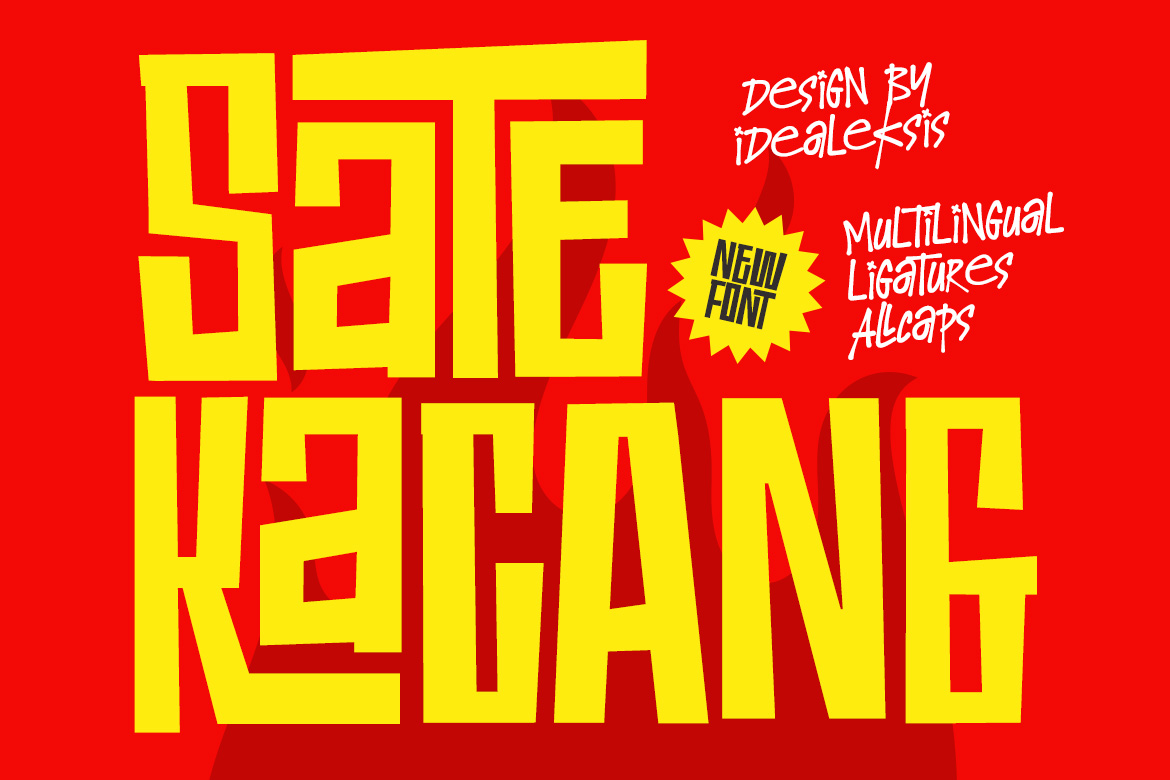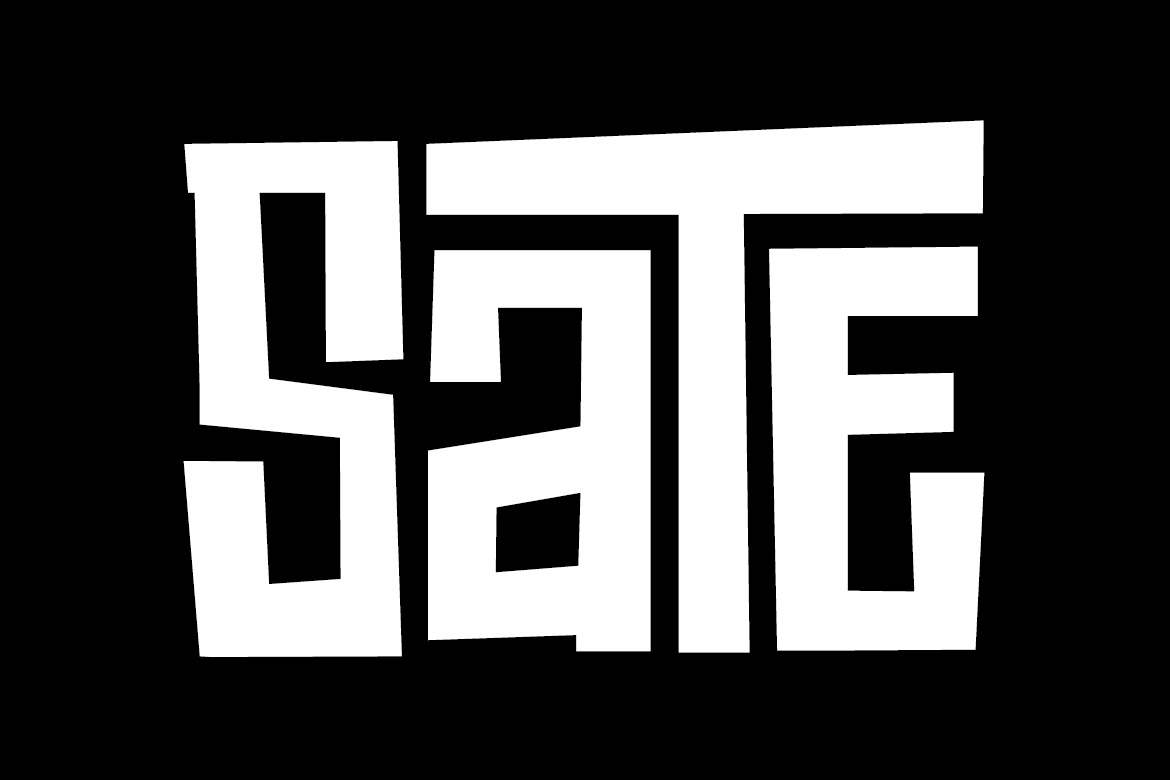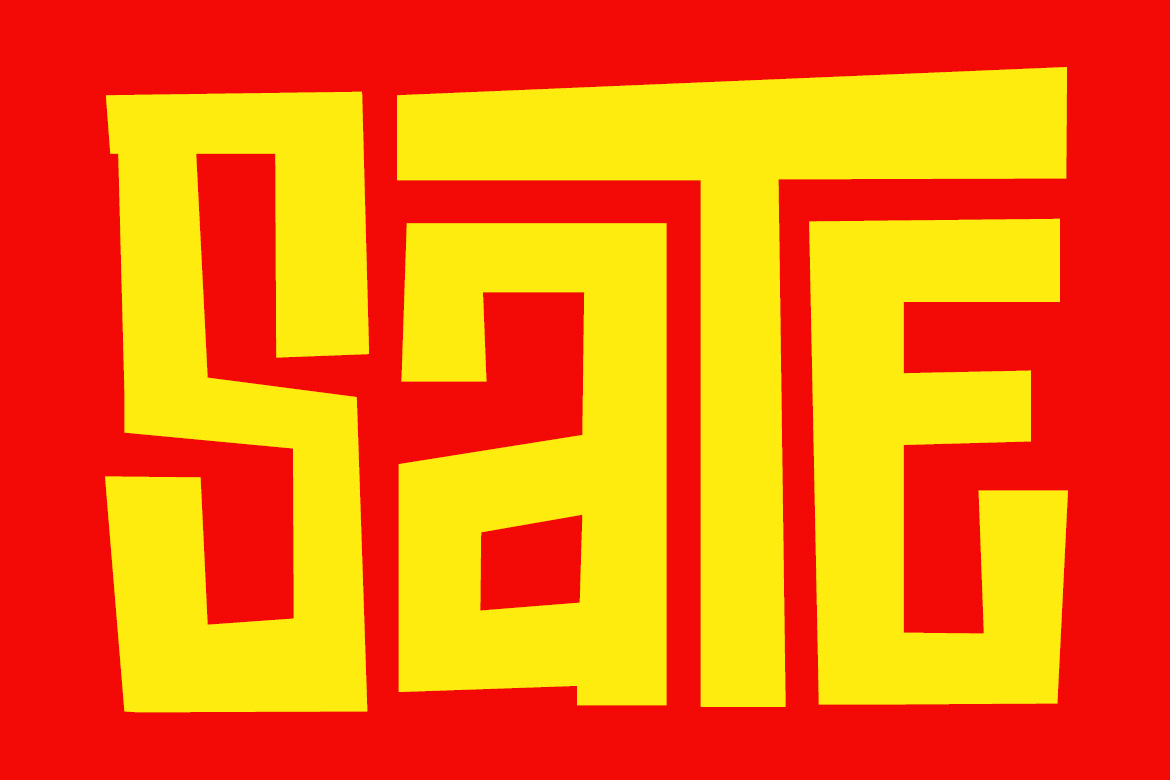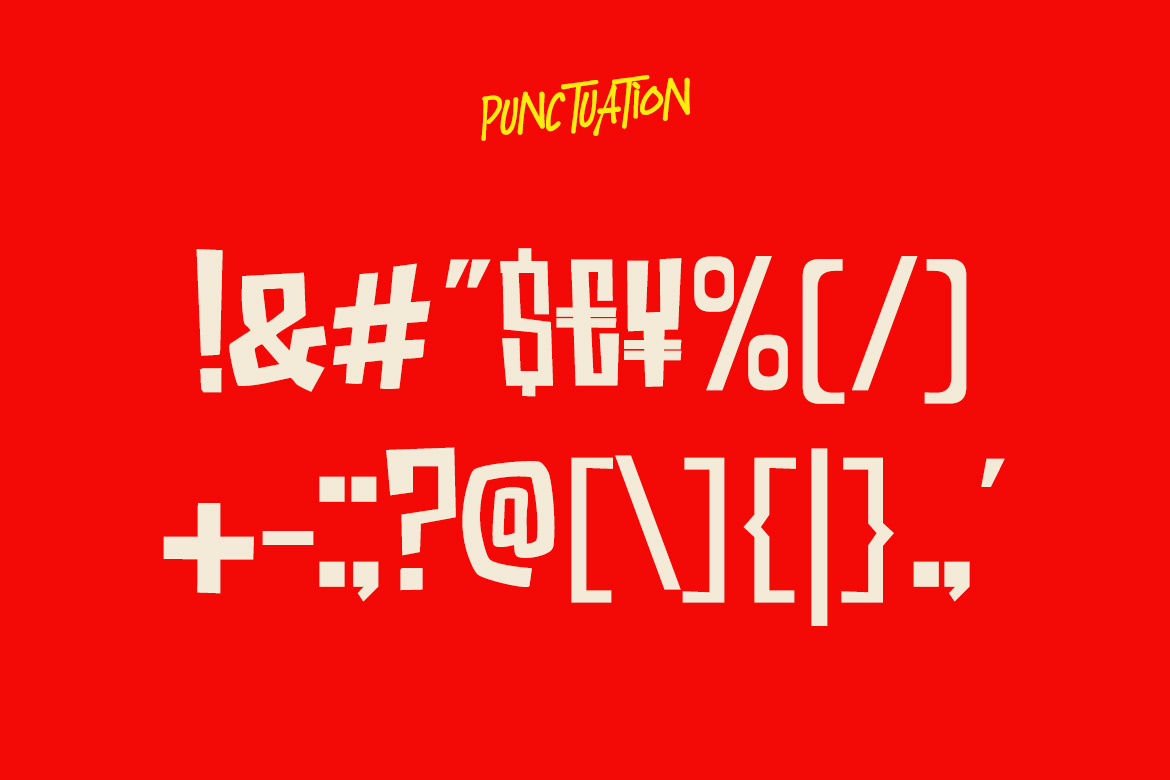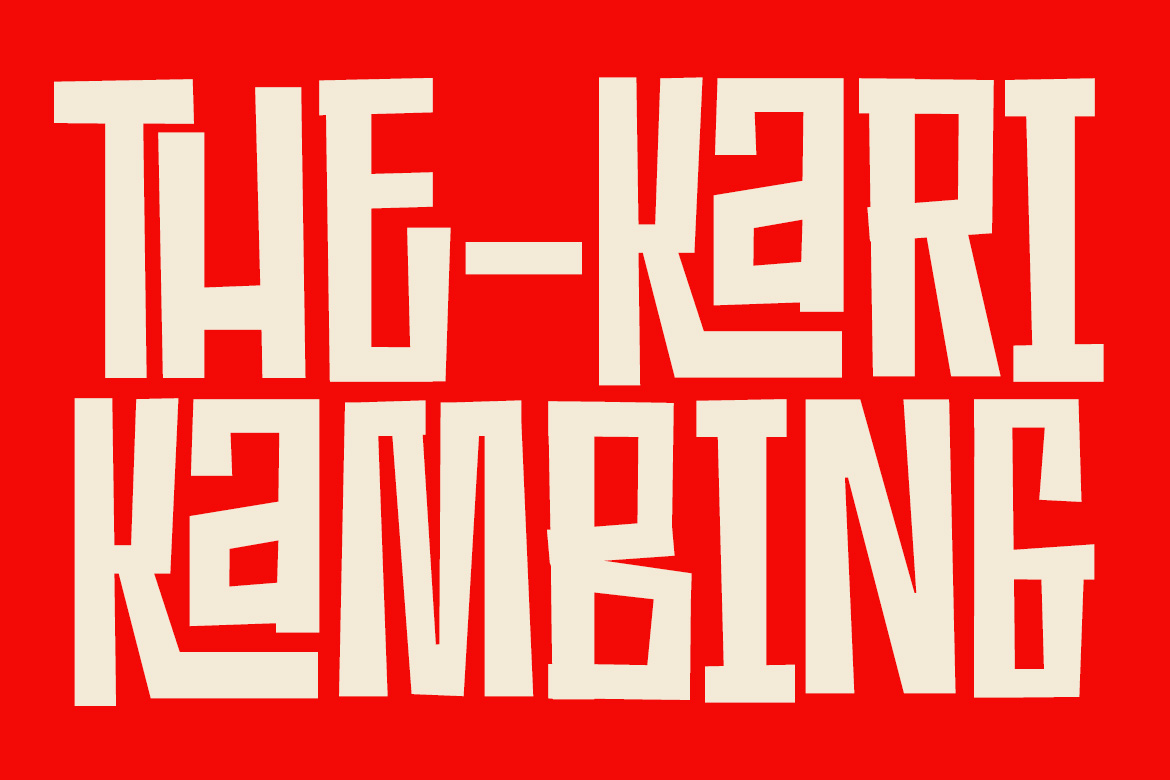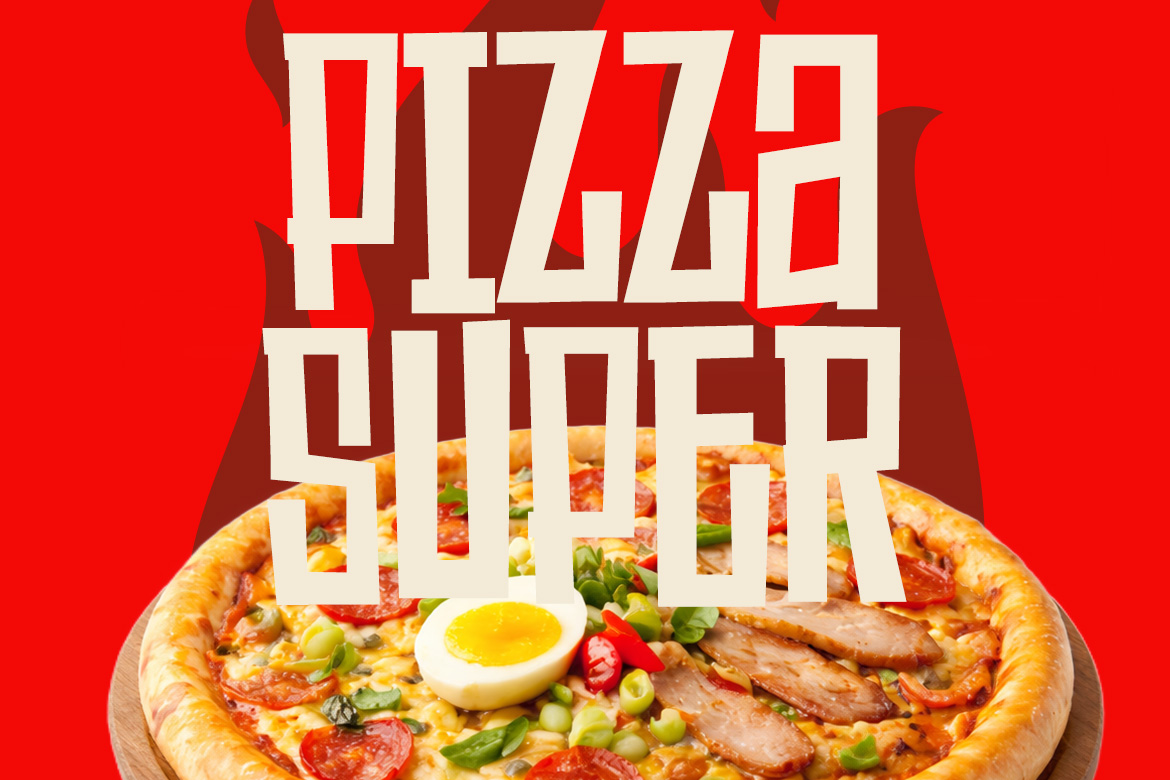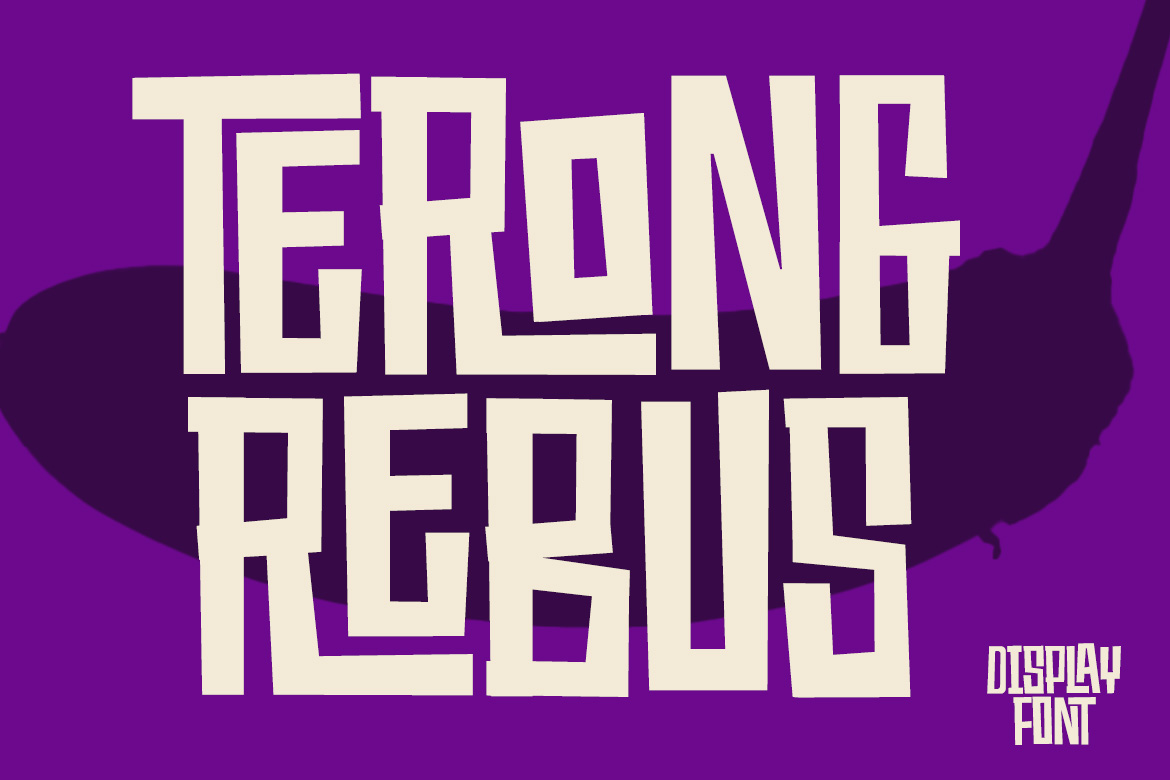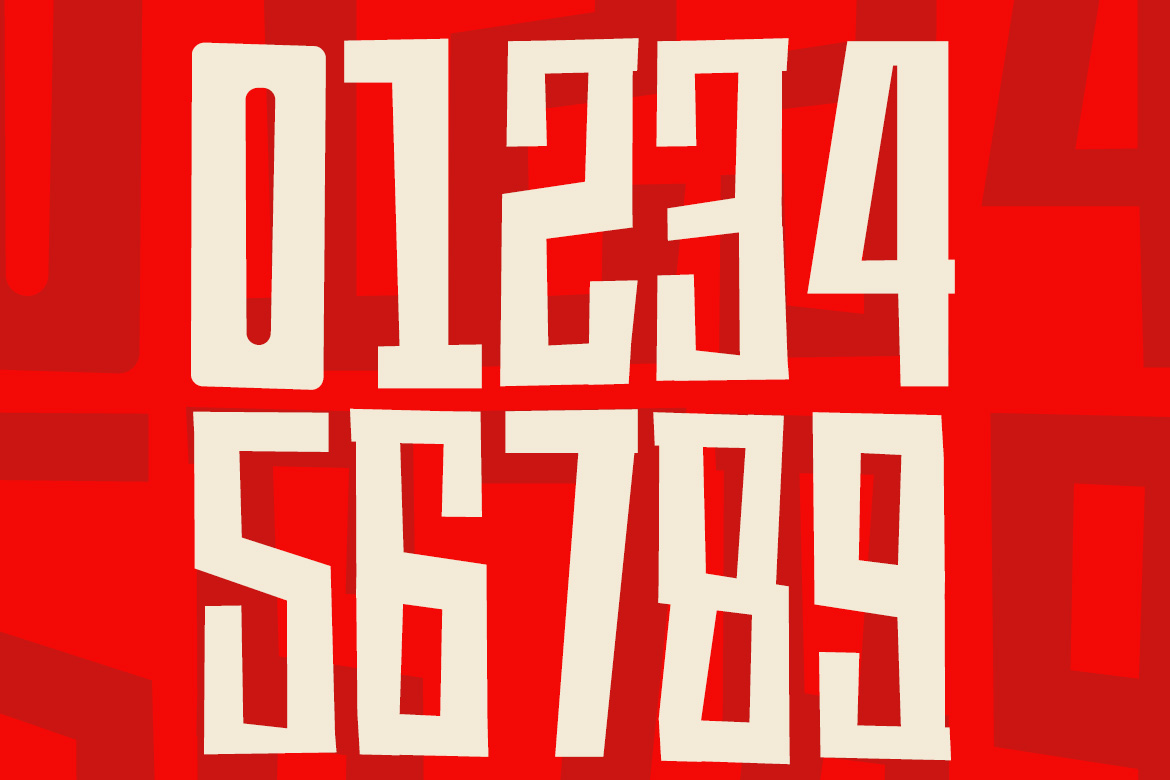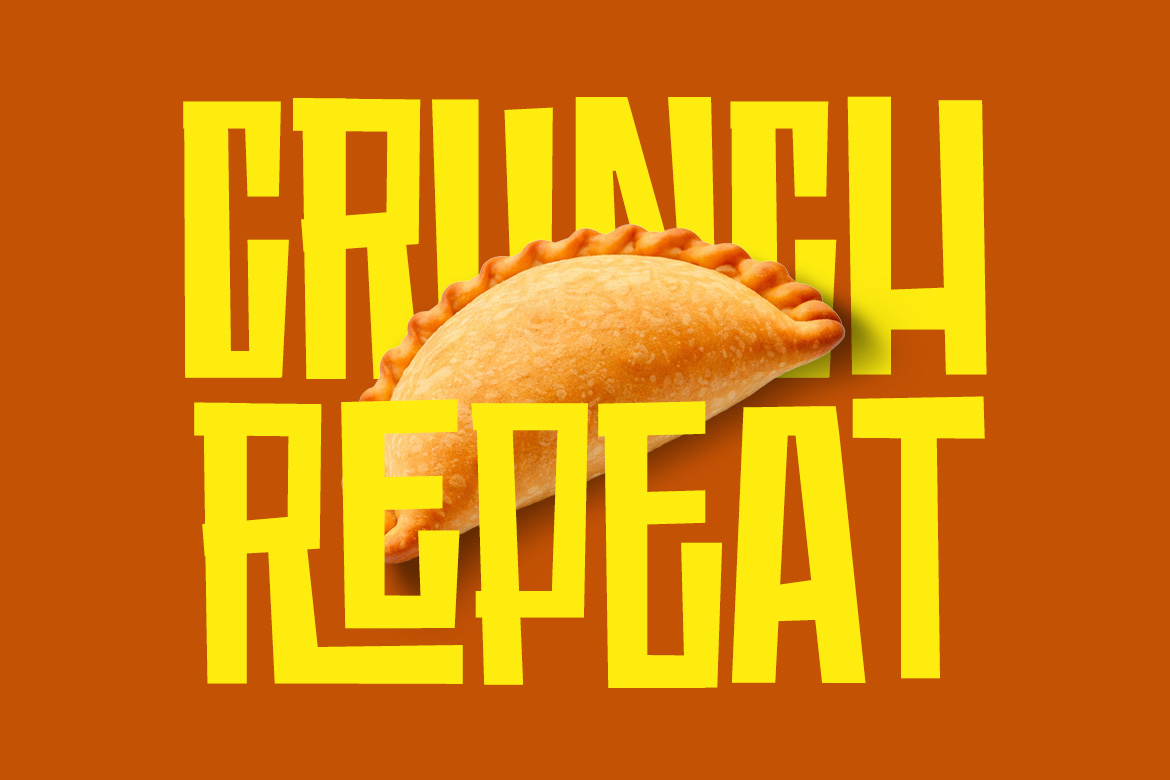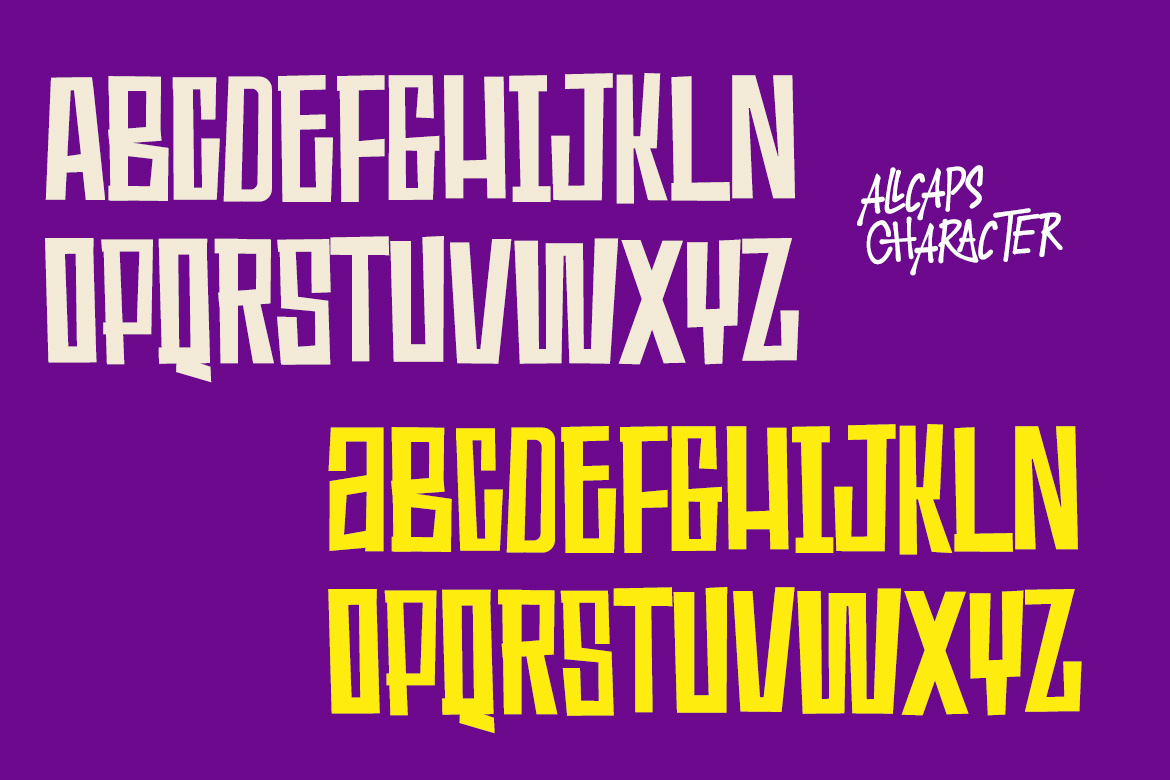
SATE KACANG
This display font features bold, blocky letterforms with a distinct paper-cut aesthetic. The characters are characterized by irregular, sharp angles and a heavy weight that commands attention. Its high-impact design utilizes negative space creatively, resulting in a rhythmic and dynamic visual flow. The overall vibe is energetic and informal, making it ideal for food packaging, event posters, and vibrant branding projects that require a hand-crafted yet powerful presence. In Package : OTF TTF WOFF WOFF2 Feature : Uppercase (All Caps) Alternate Numerals Punctuation Easy To Install Perfect for Bakery and café branding Food and beverage logos Restaurant menus and signage Coffee shop and donut shop designs Food packaging and labels Social media food promotions Kitchen-themed posters and prints Culinary blogs and recipe graphics Thank for choosing this font!